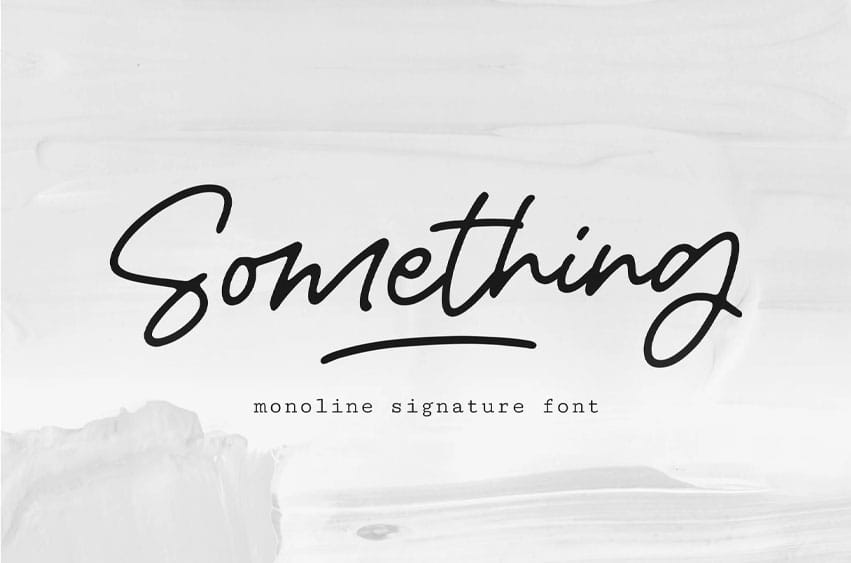
Something Font is a modern monoline signature font with a smooth and natural handwritten flow, designed to bring an authentic personal touch to your projects. Its clean strokes and balanced curves capture the elegance of real handwriting, making it ideal for branding, photography logos, fashion labels, quotes, invitations, and packaging design.
The consistent line weight gives a minimalist yet stylish appearance, while its organic rhythm adds warmth and sophistication. Whether you’re crafting a personal signature logo, wedding stationery, or editorial title, Something provides a refined handwritten look that feels genuine and effortless.